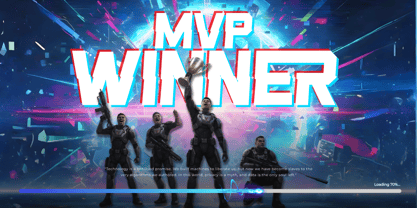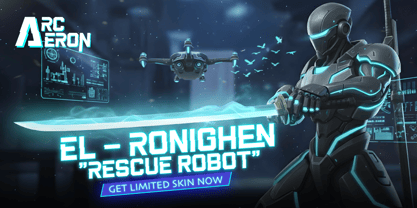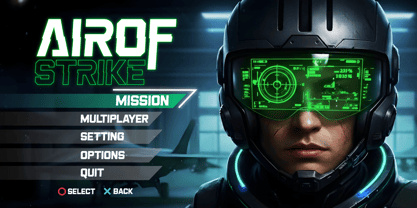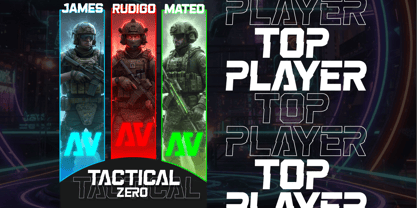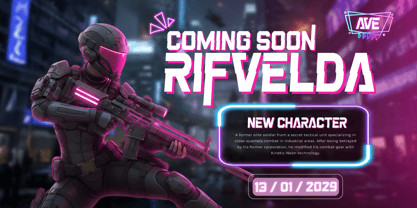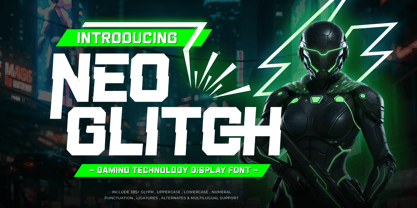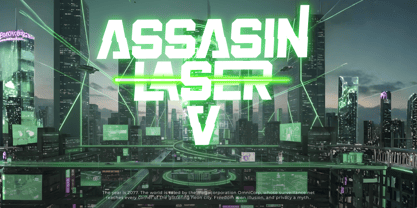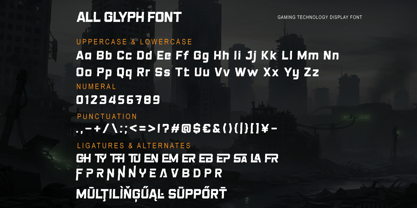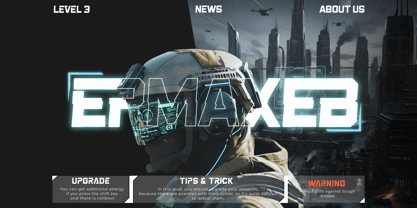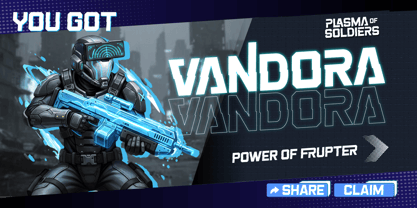
Neo Glitch is a futuristic techno display font crafted specifically for gaming, technology, and sci-fi branding needs. Featuring sharp, bold letterforms with a strong glitch effect, this typeface delivers a powerful digital, modern, and high-energy visual identity perfect for today’s tech-driven world.
Its solid structure combined with cyber aesthetic details makes Neo Glitch highly suitable for headlines, game posters, UI interfaces, esports branding, and futuristic digital content. The font instantly grabs attention with its bold and impactful presence, helping brands stand out in competitive visual environments.
Supported by a complete character set and multilingual features, Neo Glitch offers high flexibility for global design needs. Ideal for game developers, tech startups, and digital brands aiming to project a strong, innovative, and cutting-edge identity.
Neo Glitch